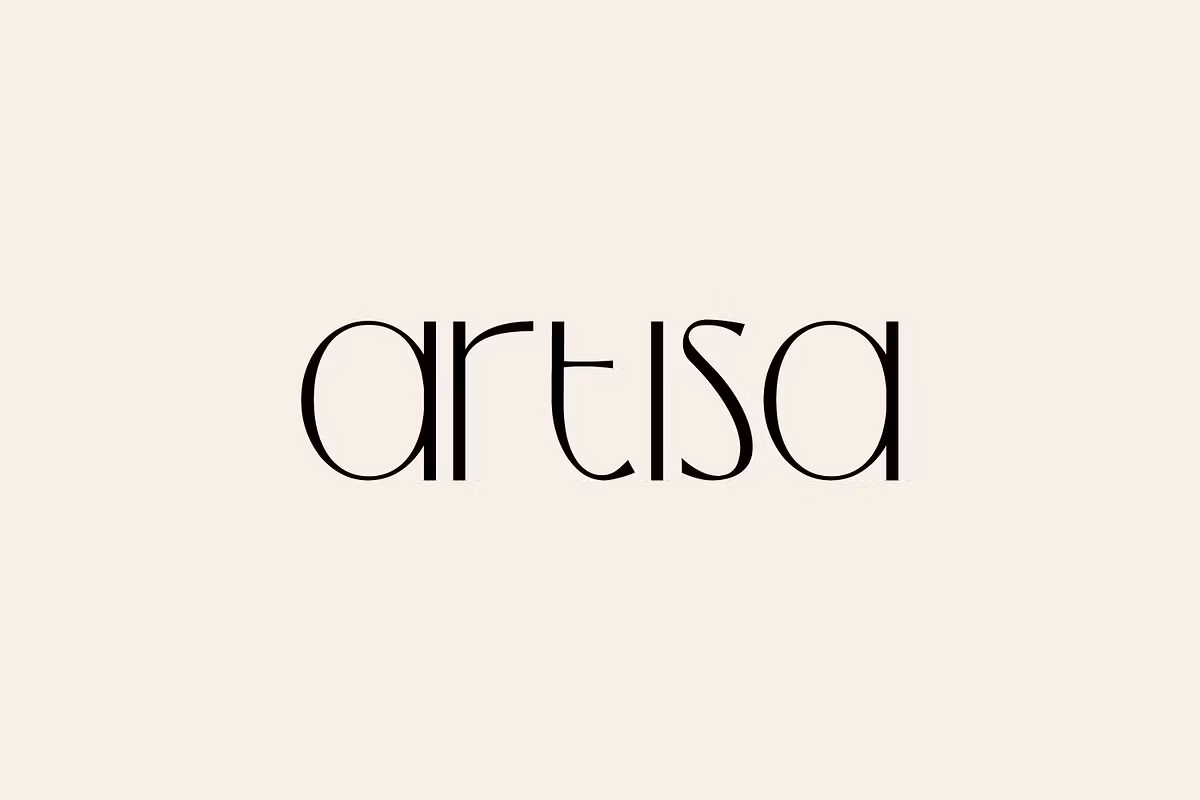
Artisa Elegant Font Free Download is a beautifully refined typeface designed to add sophistication and grace to your creative projects. With its smooth curves, delicate serifs, and timeless aesthetic, this font is ideal for luxury branding, wedding invitations, logos, editorial layouts, and high-end packaging.
Whether you’re creating a premium brand identity, designing elegant stationery, or crafting a refined magazine spread, Artisa brings an air of elegance and professionalism to your typography. It’s the perfect font for designers seeking a graceful yet modern serif that stands out with timeless charm.